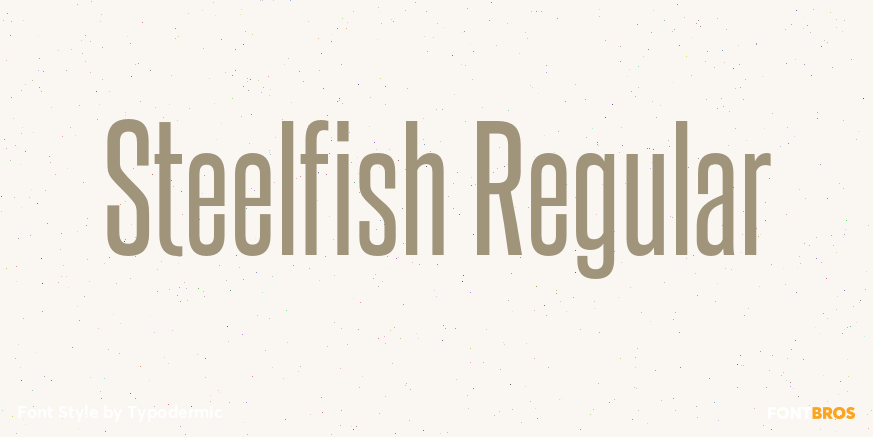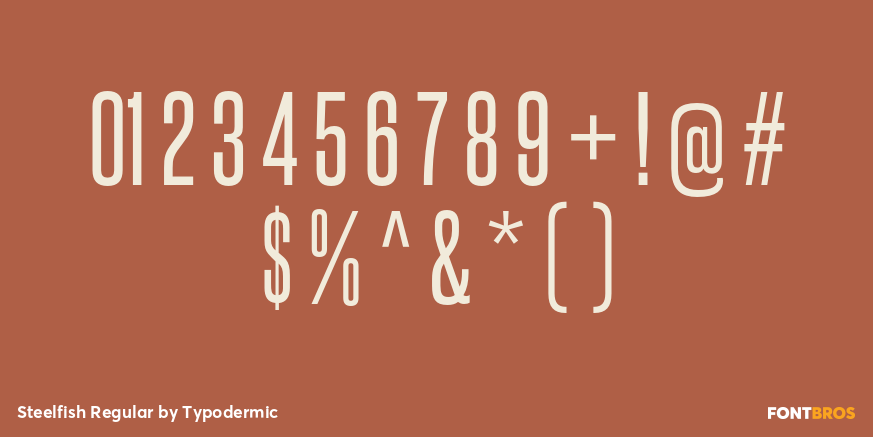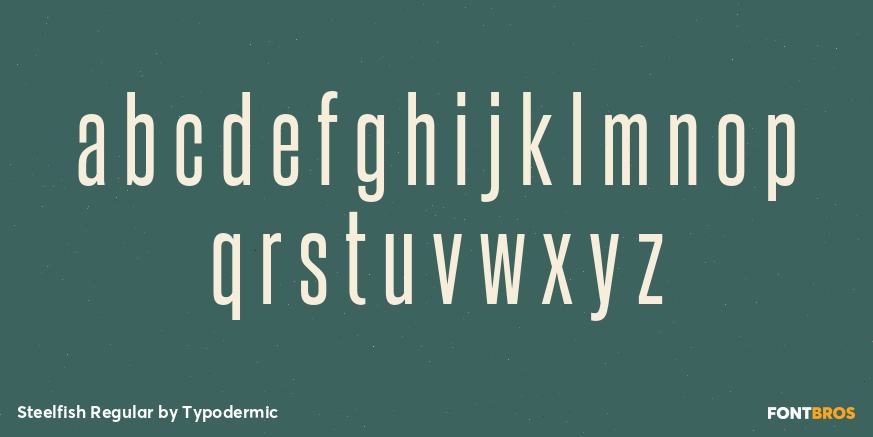
Steelfish Regular
Steelfish is an ultra-condensed sans-serif family whose proportions grew from the narrow headline styles of early-20th-century newspapers. The current drawing is clean and contemporary rather than a period imitation. Seven weights with matching obliques provide a broad hierarchy inside the same economical footprint, from fine secondary display type to emphatic headlines.
Sports media is almost a laboratory for the problem Steelfish solves. Broadcast packages, tournament brackets, starting lineups, match cards, standings, athlete introductions and arena screens must accommodate names that change constantly inside fixed templates. Steelfish preserves headline scale while leaving room for scores, statistics, sponsors and photography. The same economy works for esports tournaments, where handles, team names and event titles compete for limited screen space.
News and factual media present the same challenge at a faster pace. Breaking-news graphics, financial-news screens, documentary titles, vertical explainers and story cards cannot be rebuilt whenever the headline changes length. Steelfish lets unpredictable wording occupy a consistent visual role without forcing every long headline to become noticeably smaller than its neighbors.
Technology conferences, trade shows, product launches and shareholder meetings create another stream of variable-length information: speaker names, companies, session titles, room identifiers and schedule details for stage screens, digital posters and agenda modules. Multilingual campaign systems present a similar problem when one fixed banner, retail display or social template must accommodate languages of very different lengths. Steelfish supports Latin, Greek, Cyrillic and Vietnamese, extending that width-saving structure across a broad range of markets.
Steelfish is the clean foundation of a larger group of related families. Steelfish Rounded softens the condensed structure with rounded forms; Steelfish Hammer pushes it toward a rougher, battered surface; Steelfish Steeled introduces printed texture; and Steelfish Unleaded applies its own worn, softened treatment. When extreme proportions are needed without an added surface effect, the original Steelfish leaves the visual direction open.
Steelfish is built for variable-length information inside fixed-width design systems. The wording can get longer; the type does not immediately have to get smaller.